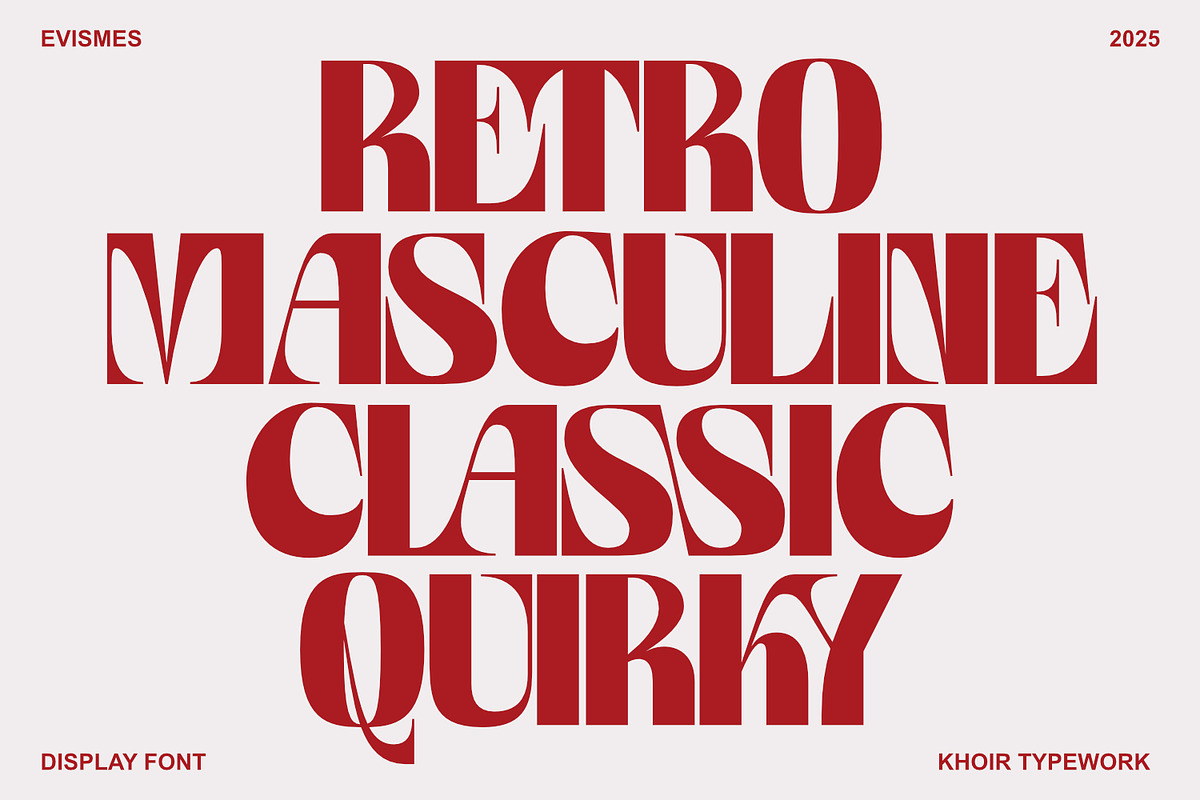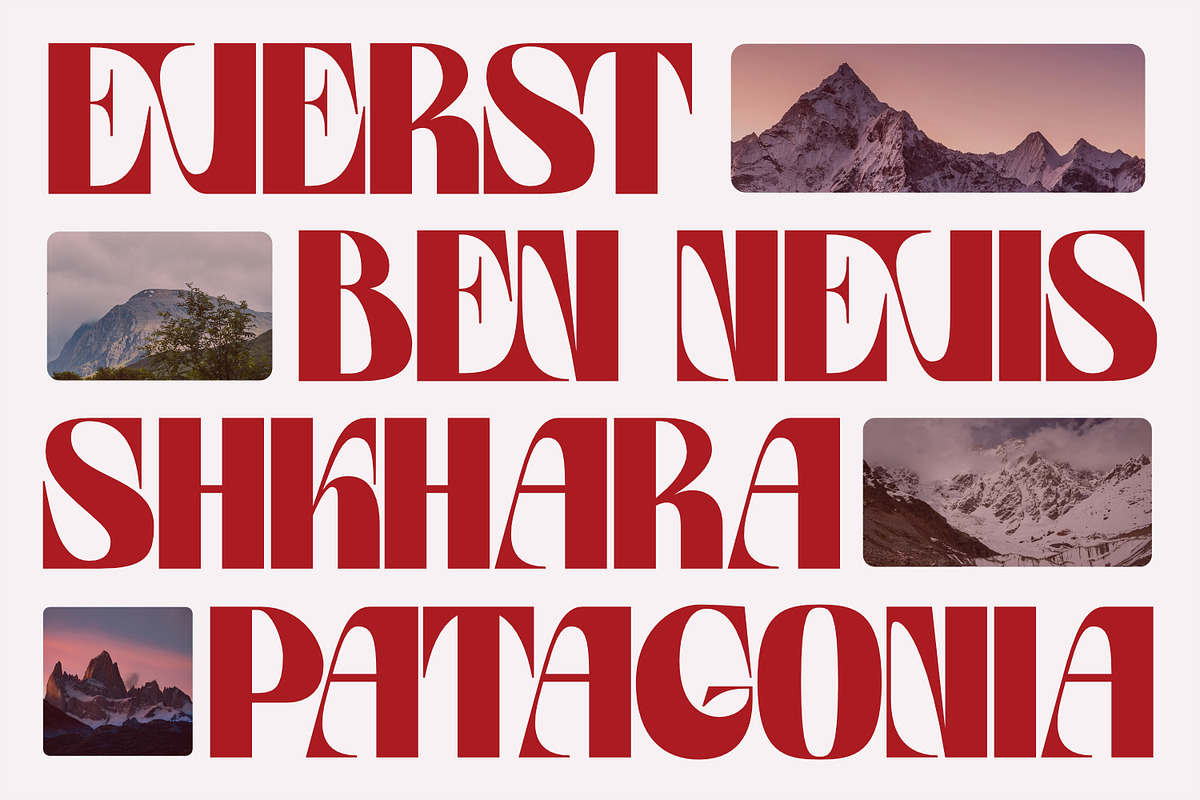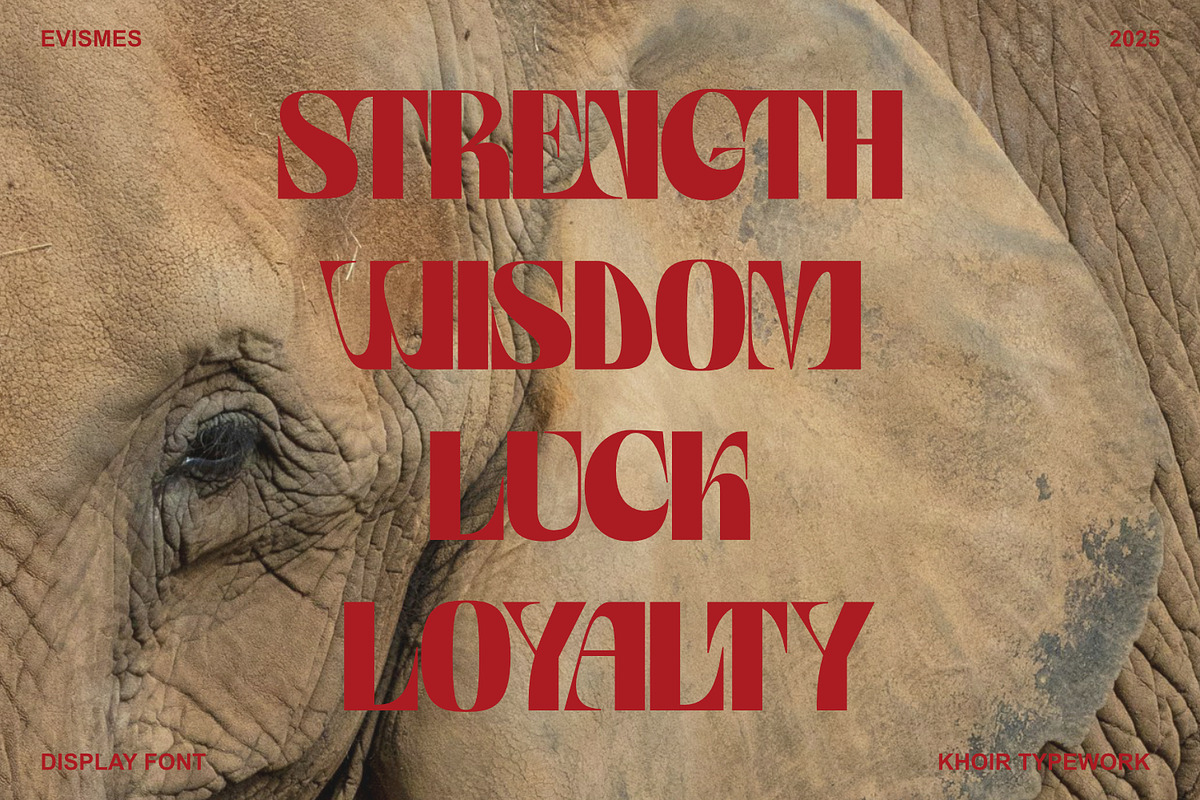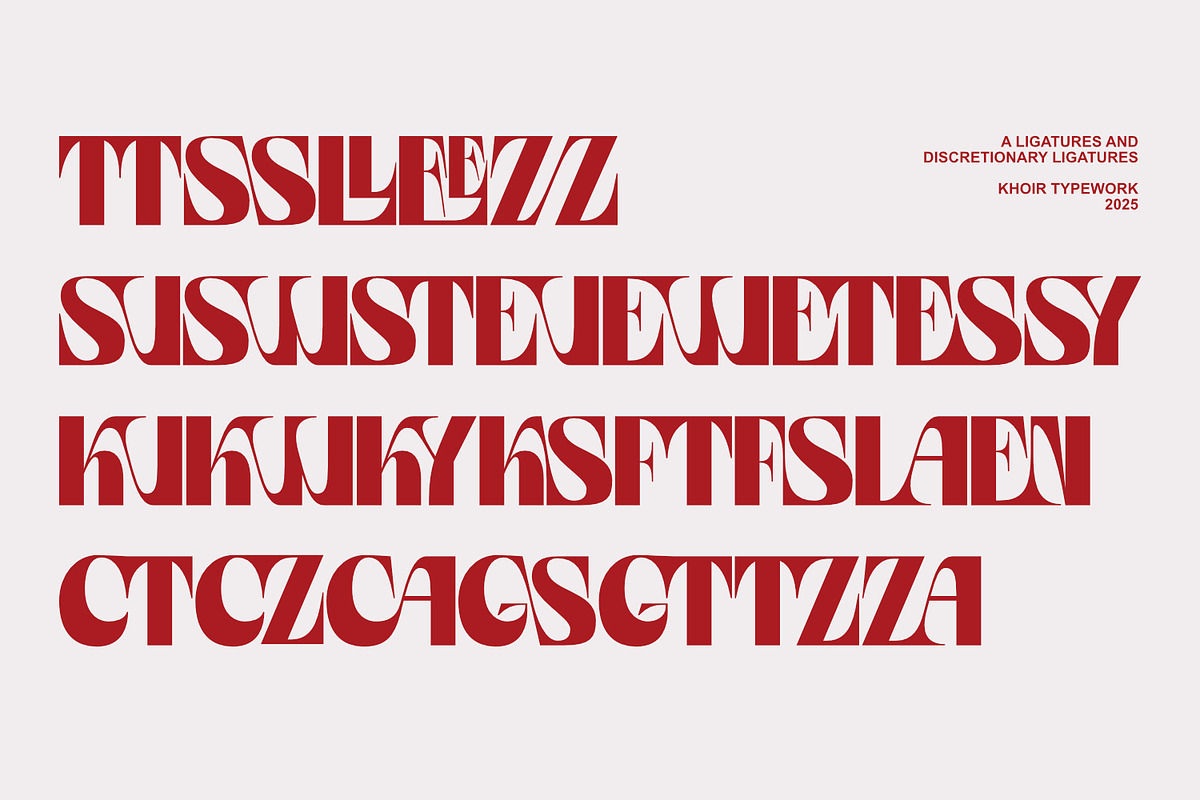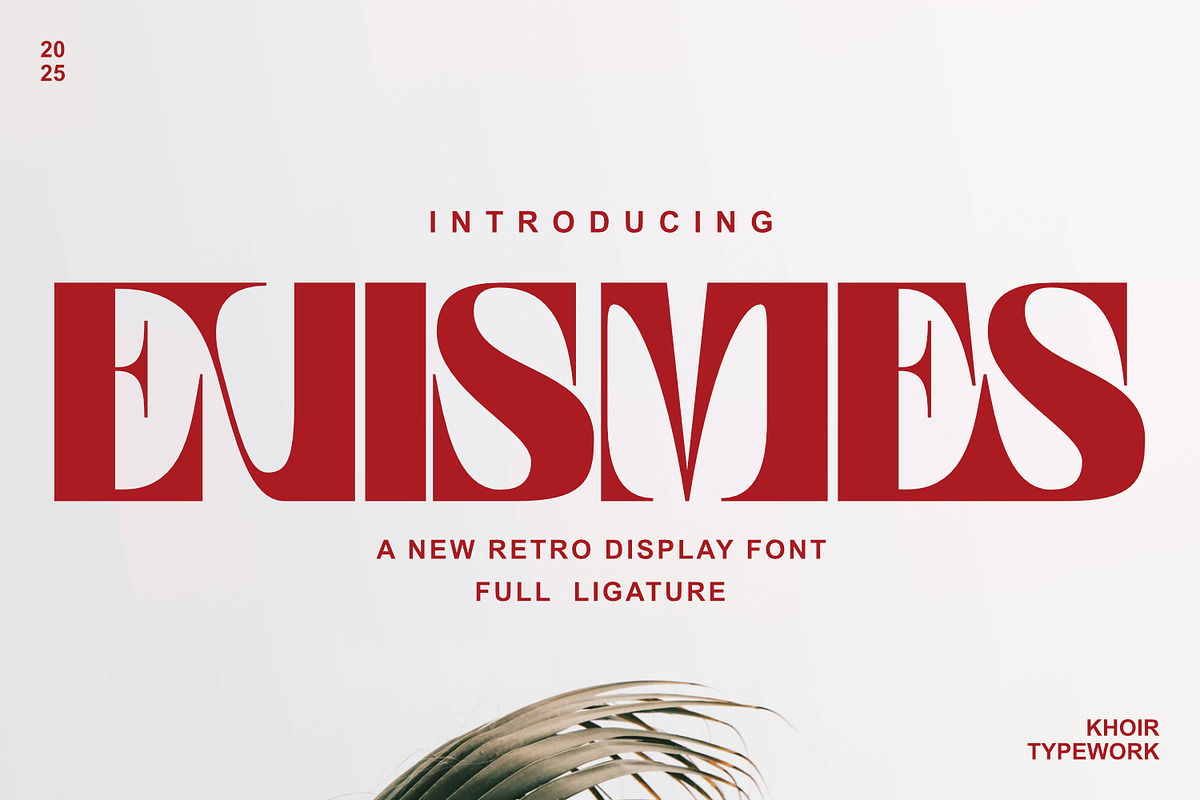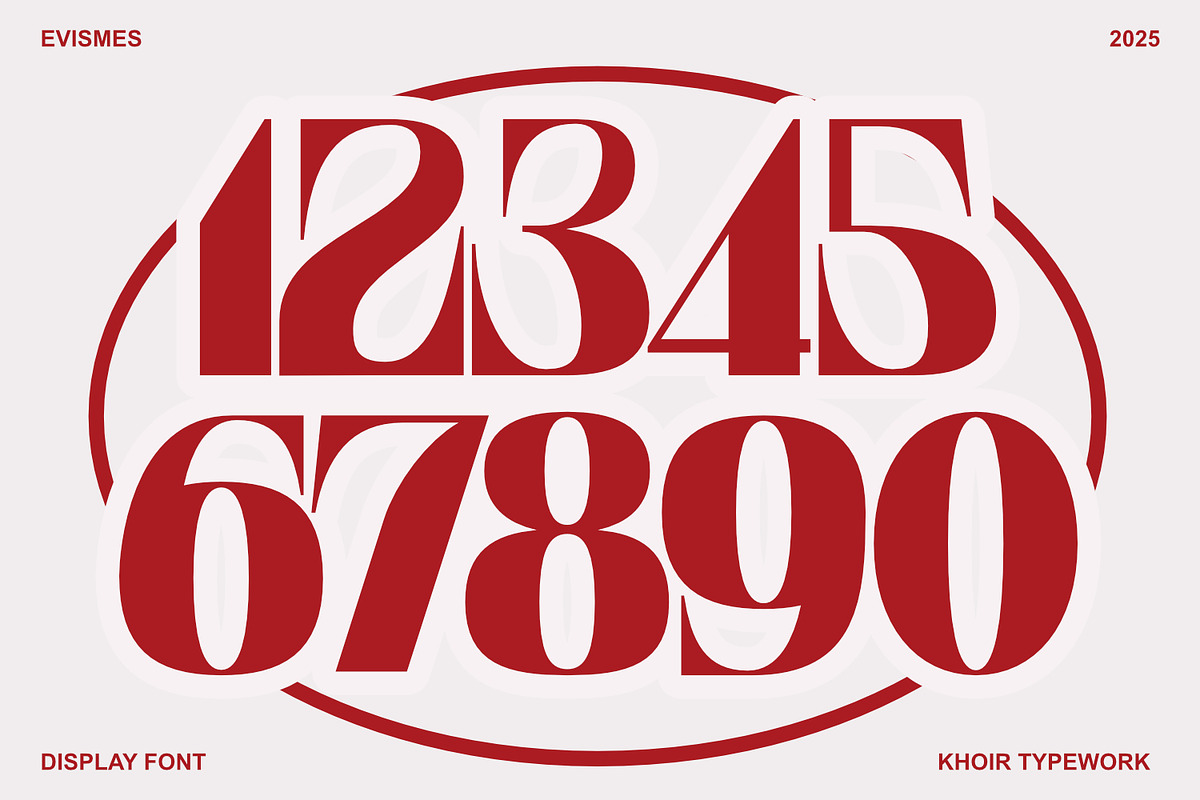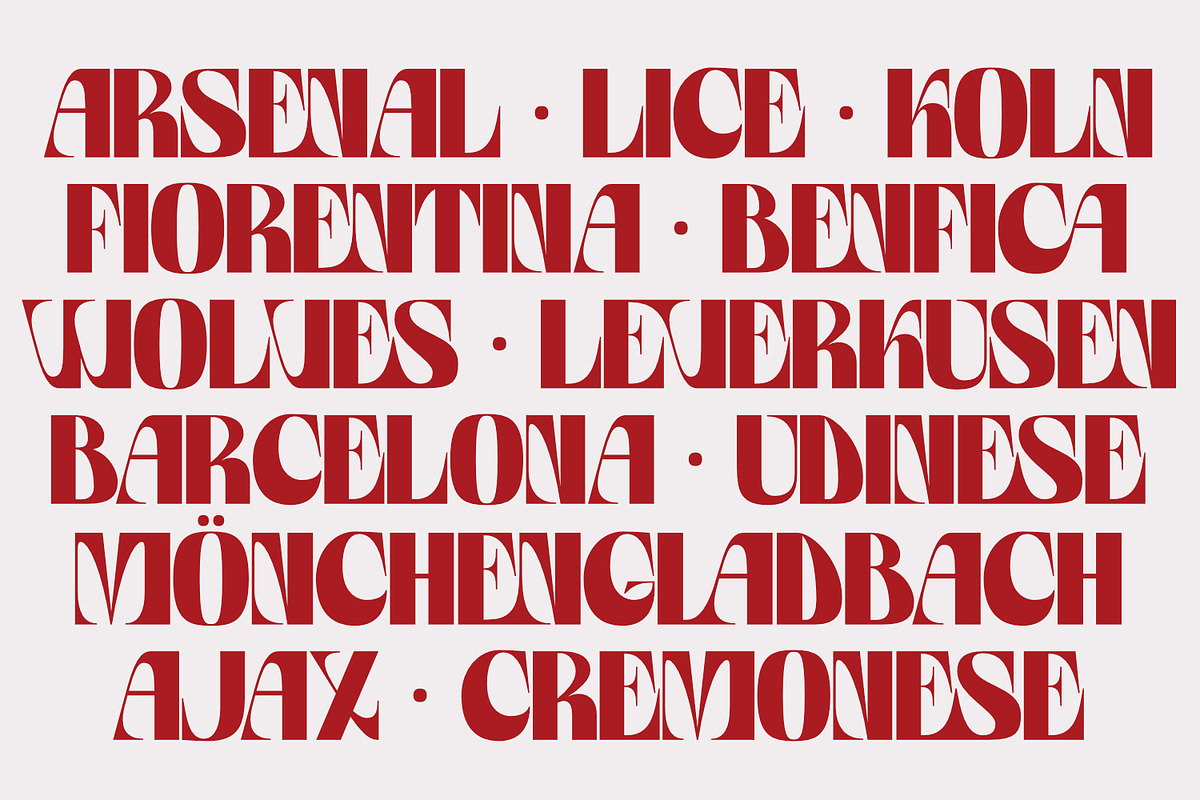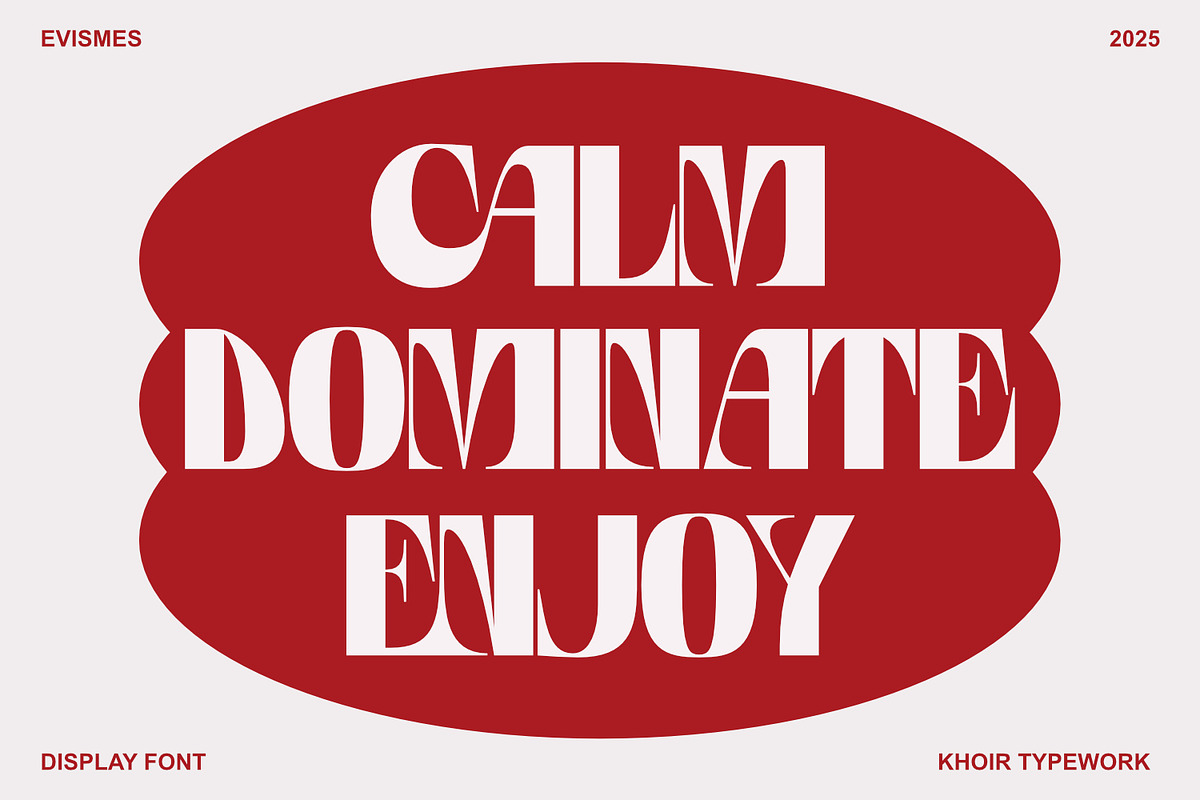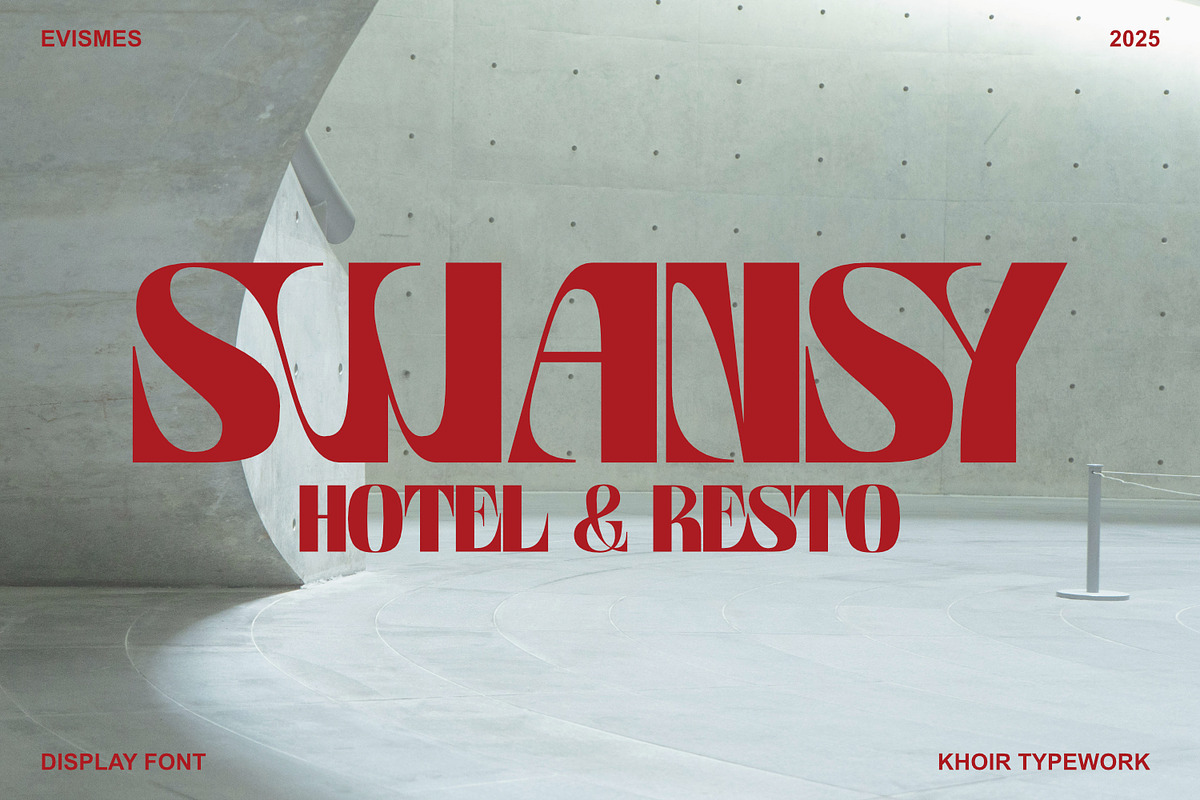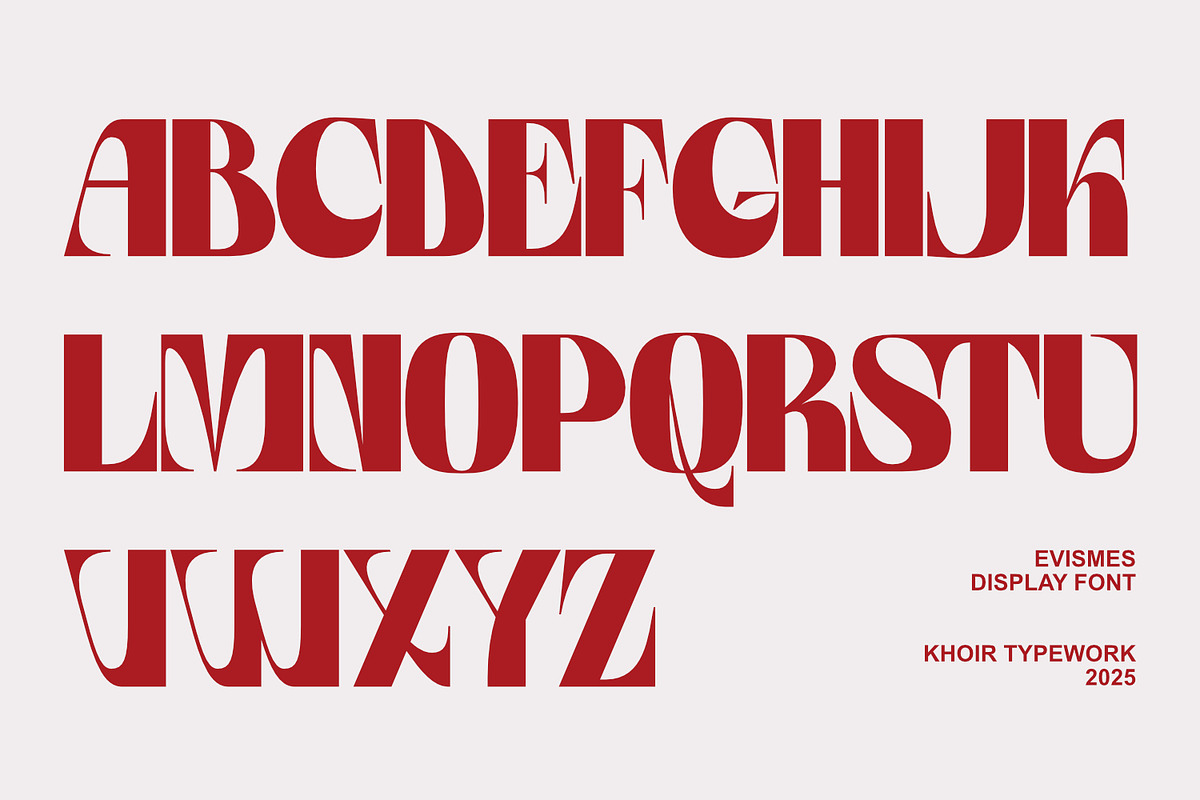
Evismes Stylish Sans
Featuring a masculine shape with a retro touch that makes it look charming, plus the many connecting letter ligatures make it look harmonious with each other.
Created with a feeling of anxiety, this font has a soft touch on every curve and corner of the letter, so that anxiety becomes calm and normal again.
- Ligature Font